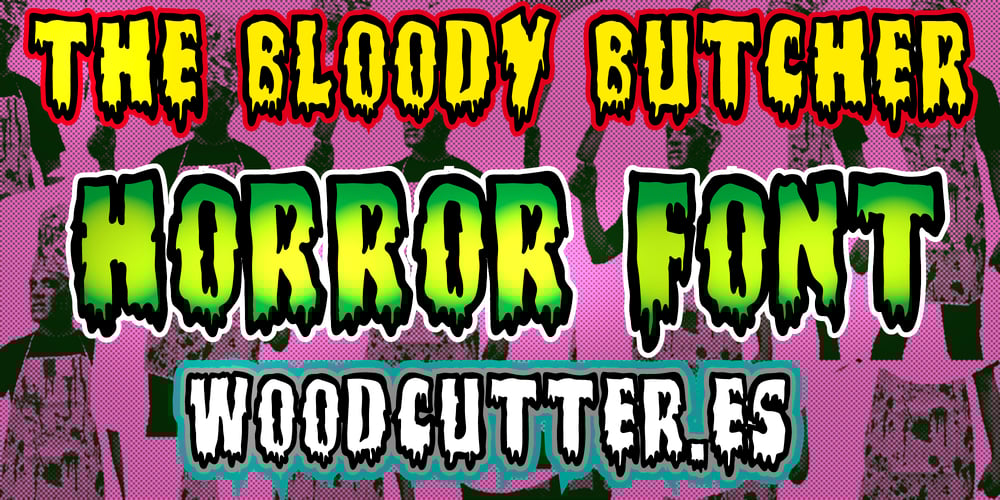
The Bloody Butcher
The Bloody Butcher font
The Bloody Butcher Font Family was designed by Jordi Manero and published by Woodcutter. The Bloody Butcher contains 1 styles and family package options. “The Bloody Butcher” is a font that evokes the style of classic horror movies. Its outlines have a worn and terrifying appearance, with letters that seem to be dripping blood. Each character, including the accents, is designed to add a creepy and macabre touch to any project. Ideal for horror movie posters, book covers, Halloween events, and any design that needs a sinister and chilling atmosphere. “The Bloody Butcher” ensures a strong and memorable visual impact.